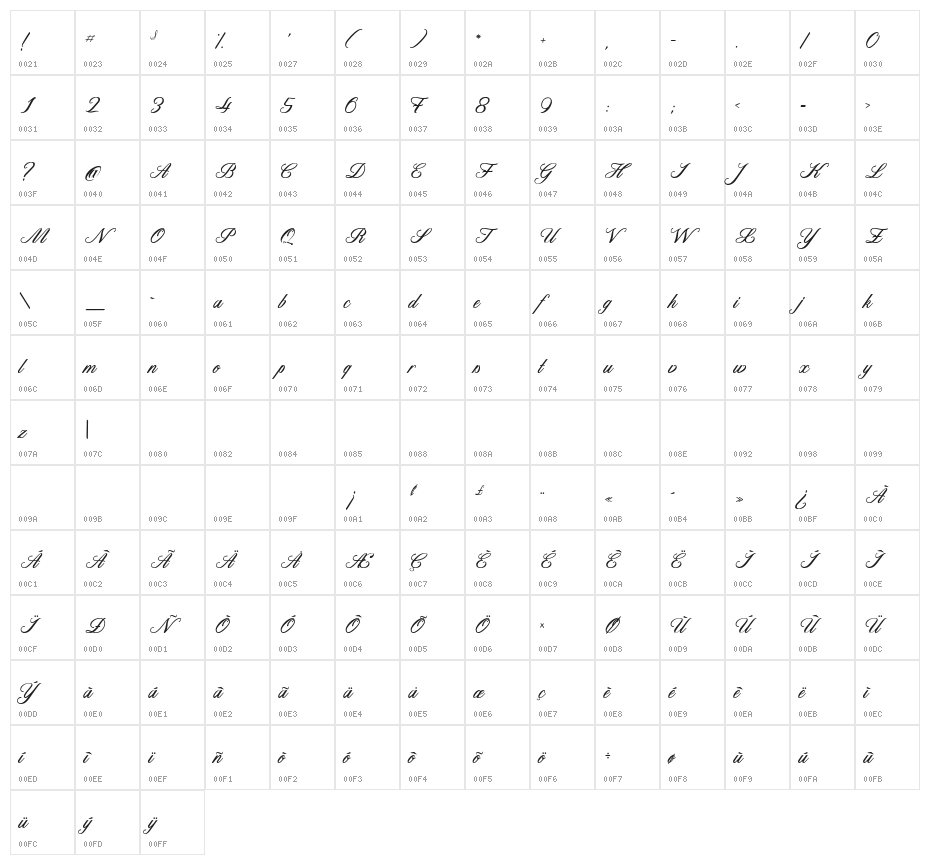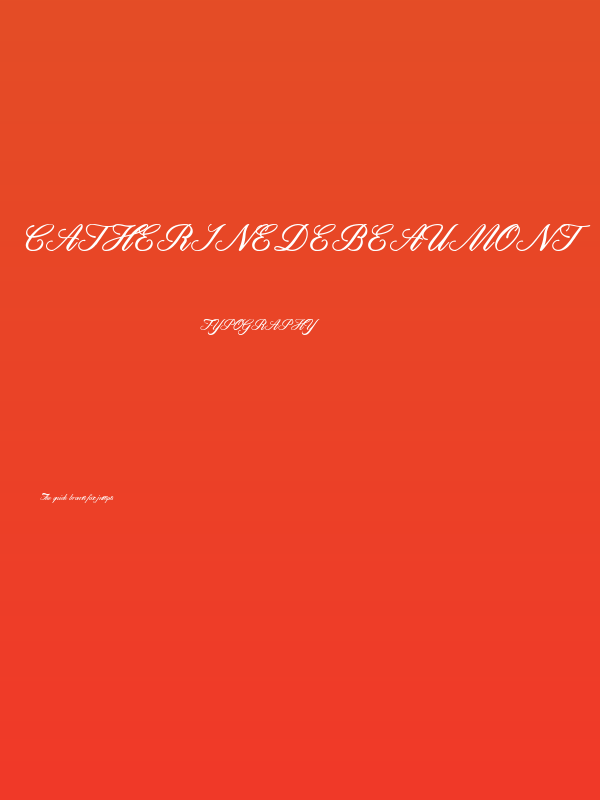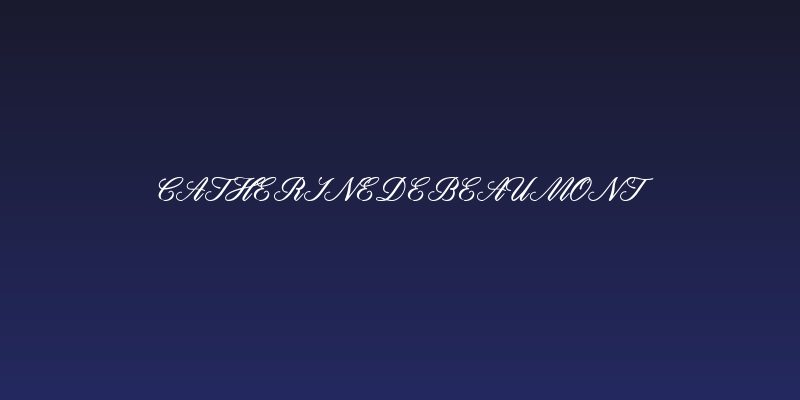
CatherinedeBeaumont Font
CatherinedeBeaumont Description
This elegant script font features flowing, cursive letters with a classic and sophisticated appearance. The uppercase letters are ornate, with graceful loops and flourishes that add a touch of formality and refinement. The lowercase letters maintain a smooth, connected style, enhancing readability while preserving the font's decorative nature. Numbers and special characters are designed with the same attention to detail, ensuring a cohesive look across all text elements. This font is ideal for projects that require a touch of elegance and sophistication, such as wedding invitations, formal event programs, or luxury branding.
| Use Case | Headlines, Invitations, Branding |
| Proposed Projects | Wedding invitations, formal event programs, luxury branding, elegant stationery. |